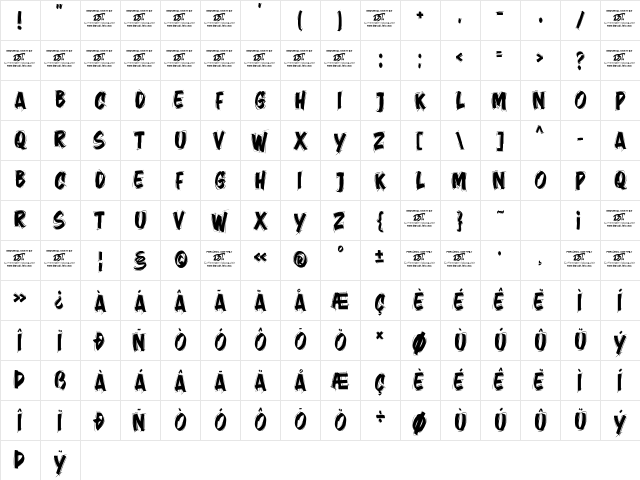
Jember Sketch Regular Free Font
Jember Sketch Regular
Designer: Toni Dzulham
Complete Jember Sketch Regular glyph index. Displaying only characters natively supported by Jember Sketch Regular font.
Design Context for Jember Sketch
Jember Sketch is a composed and adaptable typeface that performs quietly and consistently across a wide range of design contexts.